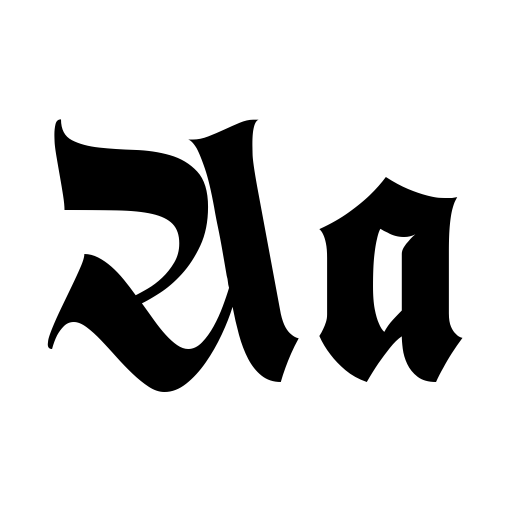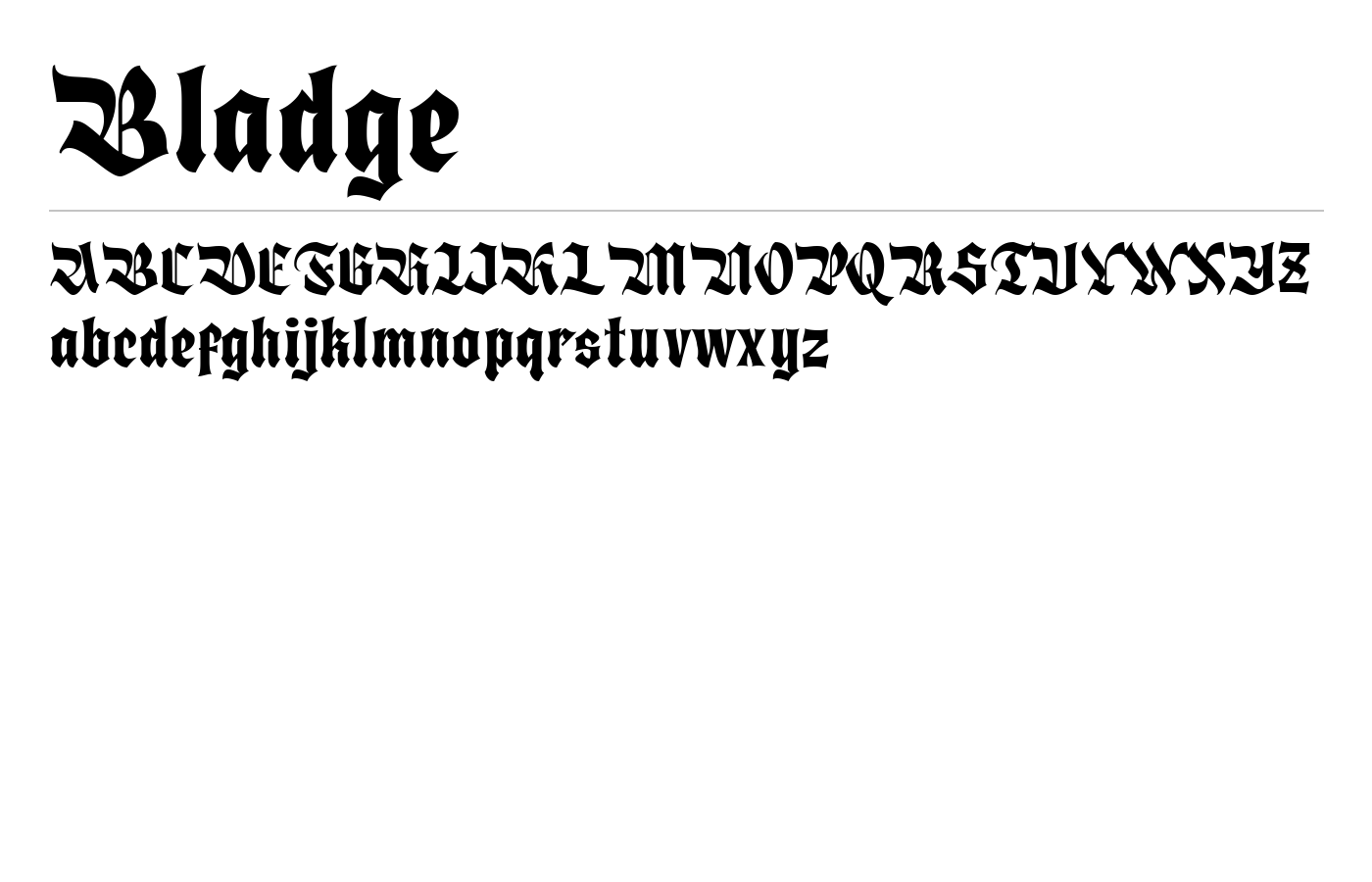
Bladge is a bold blackletter font with sharp, dramatic strokes and a strong medieval character, featuring high contrast between thick and thin lines and ornate, angular letterforms. Its dense, decorative style makes it ideal for creating a vintage or gothic mood, perfect for logos, posters, or headlines that need a striking, historical feel. This font adds a commanding, old-world elegance to any design requiring a touch of tradition and bold impact.
Bladge Font
About Bladge Font
| Font family | Bladge Font |